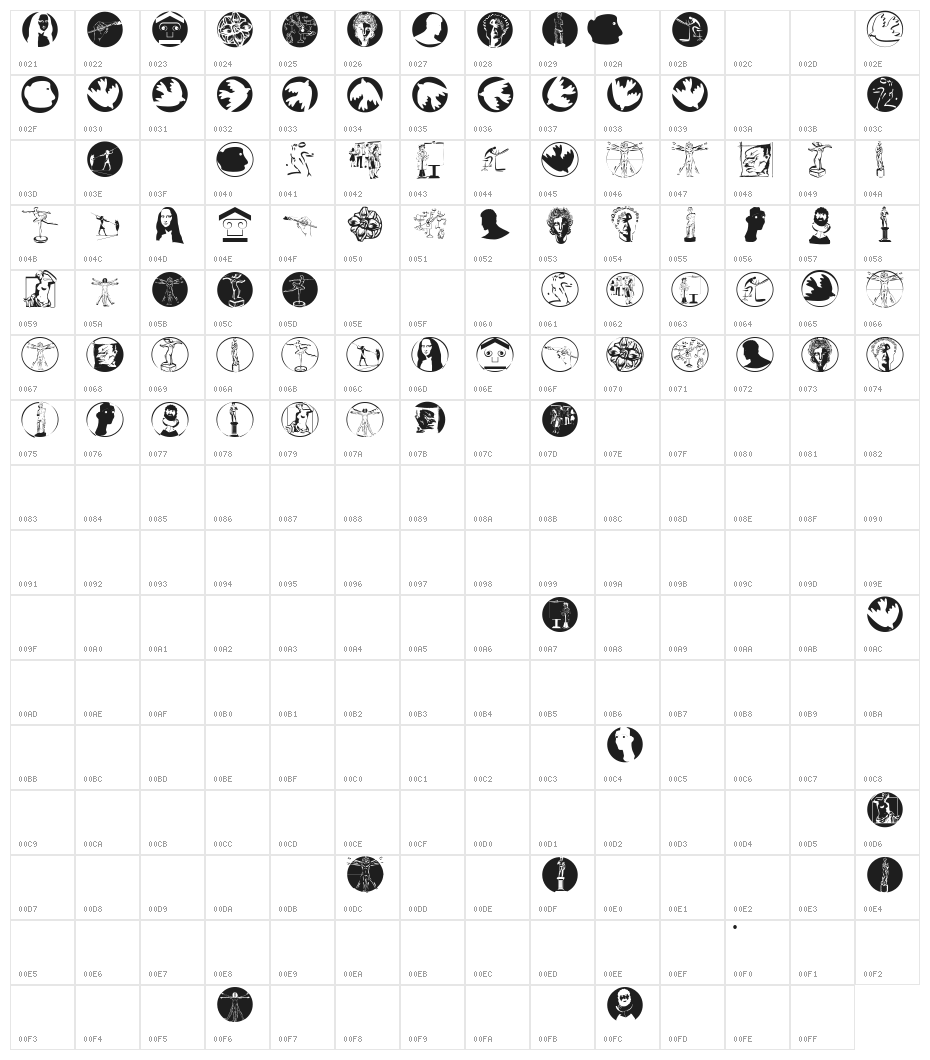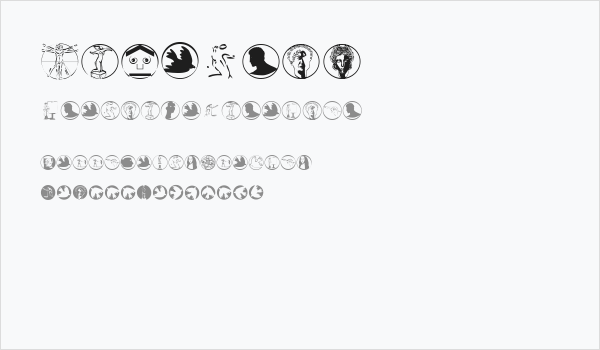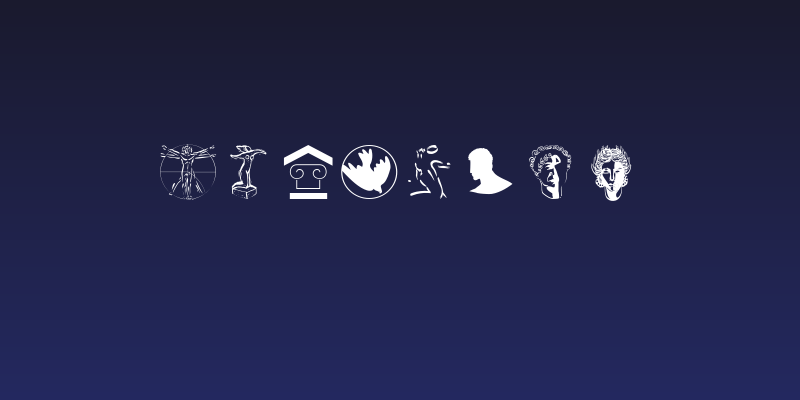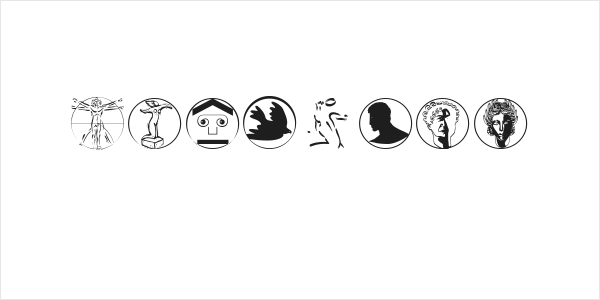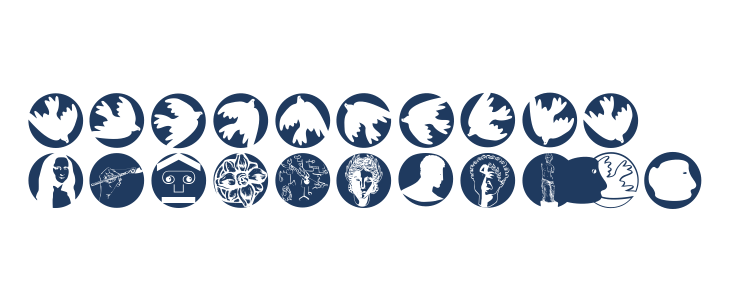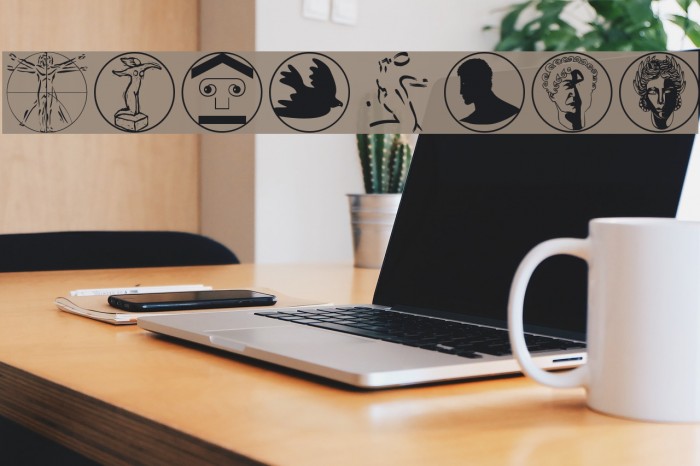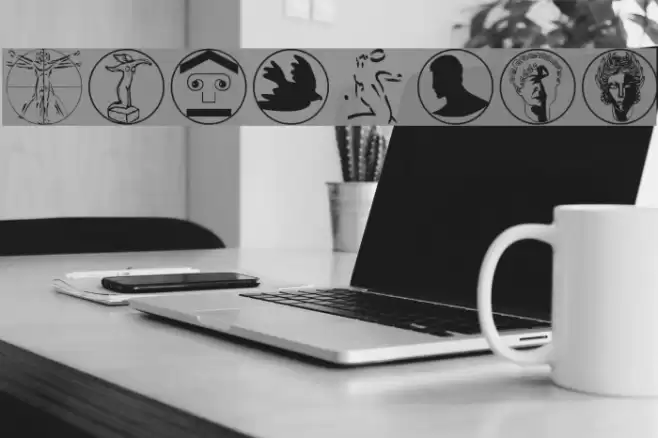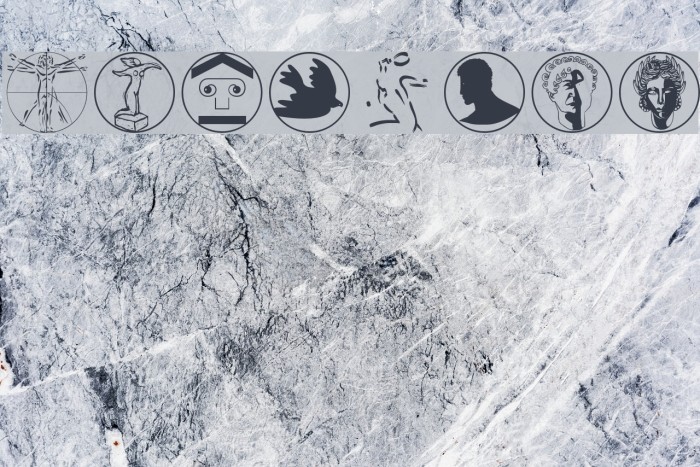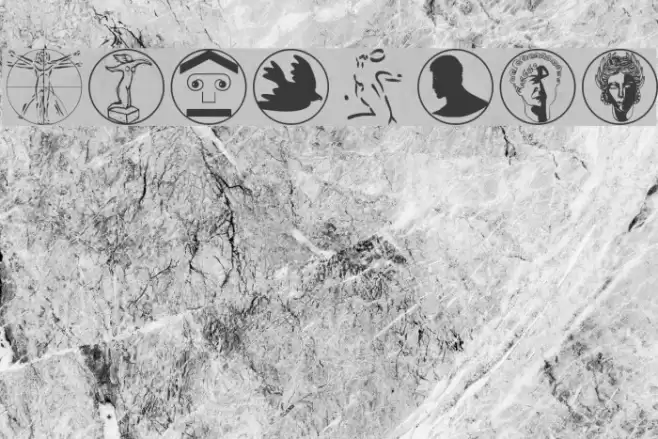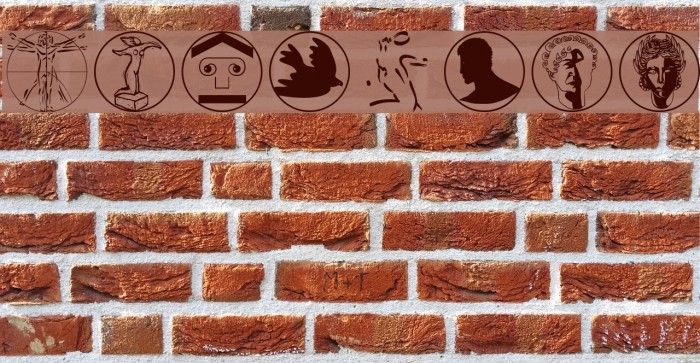
FineArts Font
FineArts Description
A decorative dingbat font featuring a variety of fine arts-themed illustrations, including classical sculptures, famous artworks, artist silhouettes, and abstract motifs. Each character is represented by a unique, detailed black-and-white icon, often enclosed in a circle or standalone, evoking themes of art history and creativity.
| Overall Style | Decorative, Artistic, Thematic |
| Use Case | Logos, Decorative elements, Themed graphics, Educational visuals |
| Proposed Projects | Art event posters, museum brochures, educational materials, creative branding, art class handouts, decorative borders. |